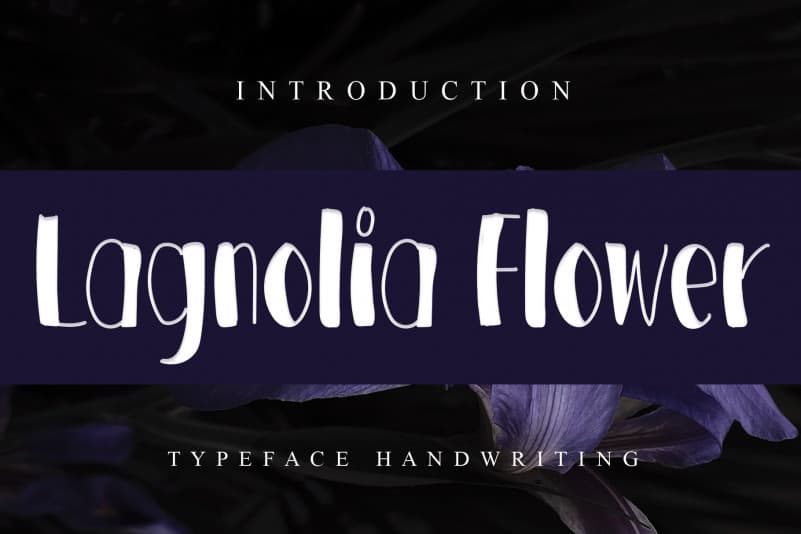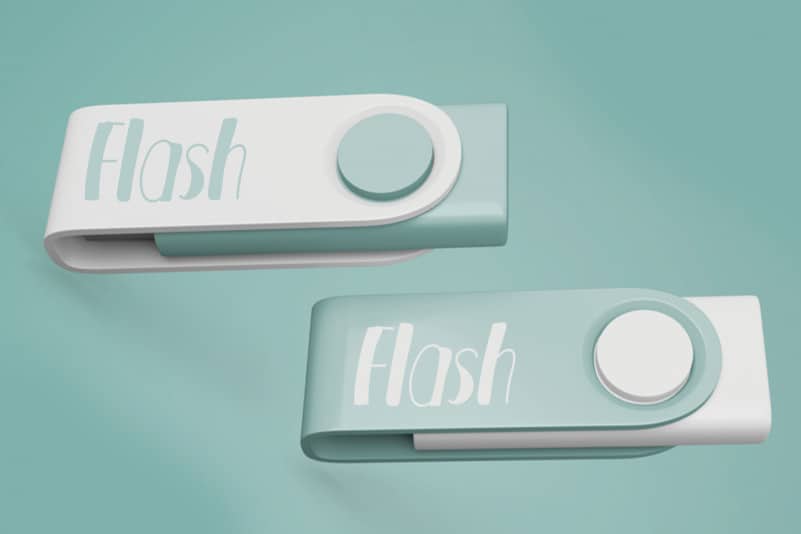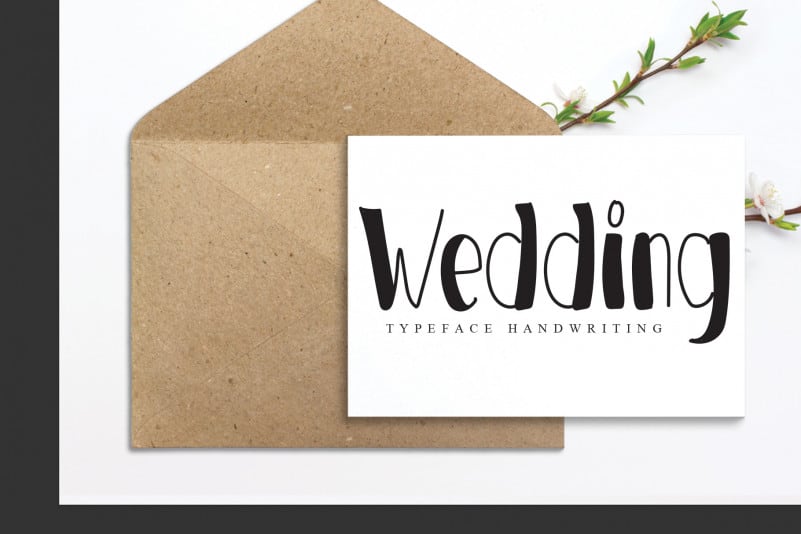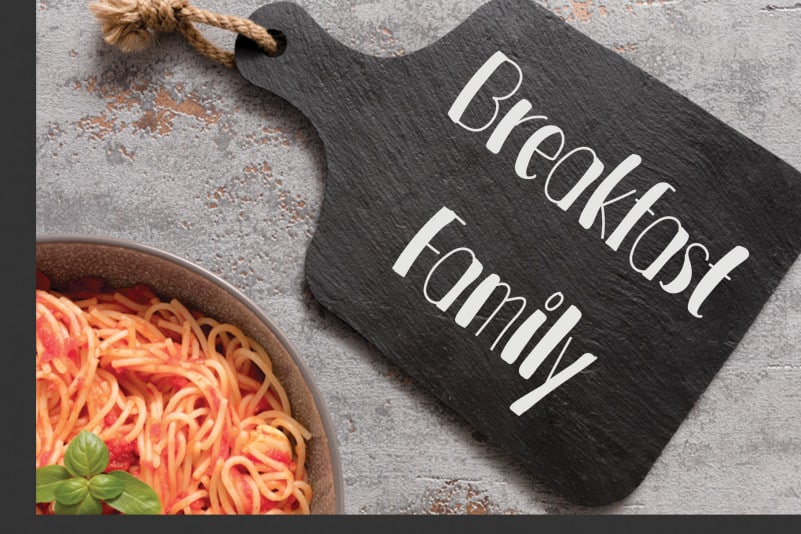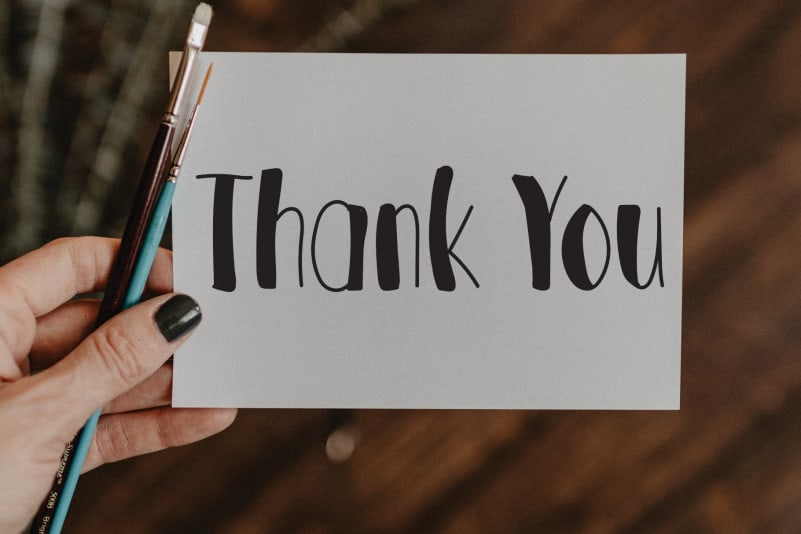
Lagnolia Flower Display Font
Lagnolia Flower Display Font is a simple and neat display font. Stylish and trendy, this font makes each of your designs come alive!